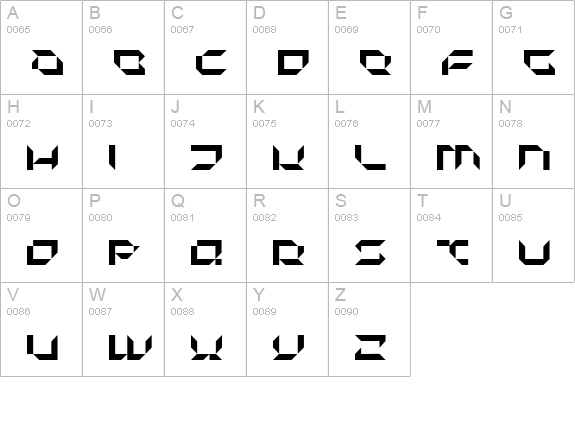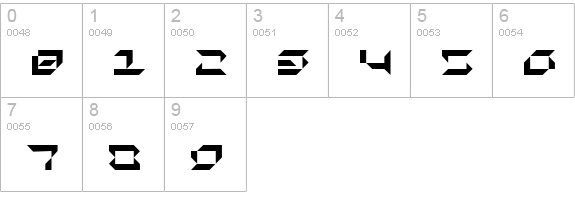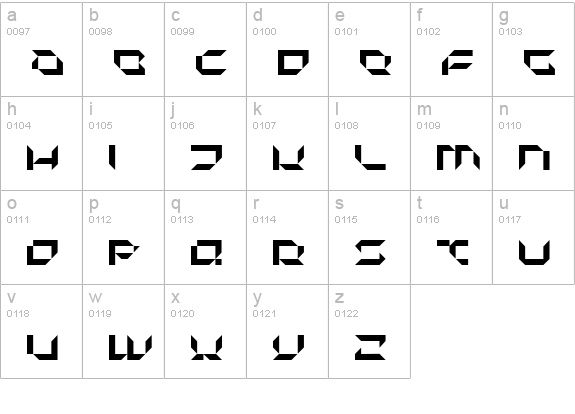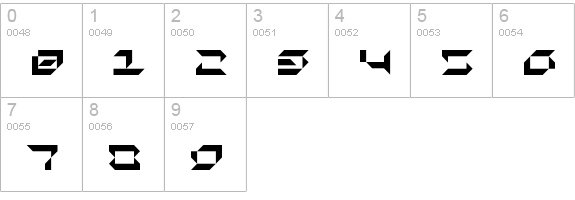
Pluranon Normal Font Details
Pluranon Normal is the standard, neutral variant in the Pluranon typeface family \xE2\x80\x94 well suited to general body text, paragraphs, and standard typographic work.
Pluranon Normal font exudes a perfect balance of elegance and modernity, making it a versatile choice for a wide range of design projects. With its clean lines and distinct characters, this font adds a touch of sophistication to any text or graphic element. Whether you're creating branding materials, web designs, or print media, Pluranon Normal font is sure to elevate your work to the next level. What's even better is that Pluranon Normal font is completely free to download at FontsMarket.com. Yes, you read that right! You can enjoy the beauty and versatility of this font without spending a penny. So go ahead and enhance your projects with the timeless charm of Pluranon Normal font, available for free download now!